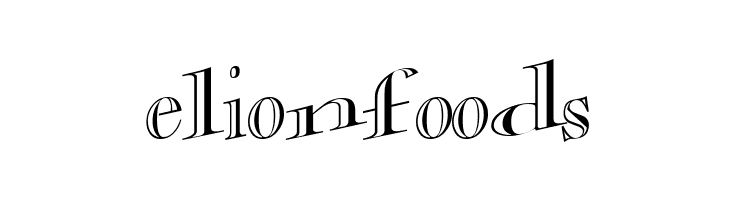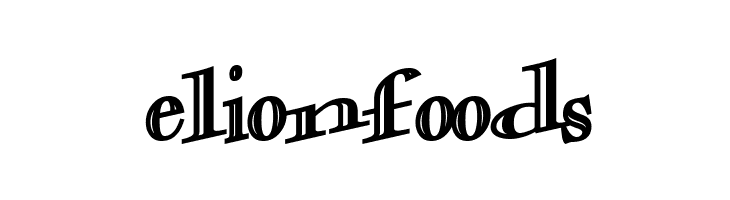
( Fonts by Levi Halmos )
A rustic, hand-drawn font with uneven strokes and a whimsical touch.
( Daniel Plant - www.fontmonster.org )
A playful, hand-drawn script with irregular, expressive strokes.
( Fonts by www.fenotype.com )
A bold, double-lined outline font with a modern, geometric style.
( Fonts by www.fenotype.com )
A bold, outlined font with rounded edges and a modern, geometric style.
( Fonts by www.fenotype.com )
A bold, outlined font with a modern, tech-inspired aesthetic.
( Fonts by www.fenotype.com )
A bold, playful font with a double-outline effect and rounded characters.
( Fonts by www.fenotype.com )
A bold, geometric font with a modern and structured design.
( Fonts by www.fenotype.com )
A modern, bold font with rounded edges and a futuristic style.
( Fonts by www.fenotype.com )
A bold, geometric font with a modern, futuristic style and rounded corners.
( Fonts by www.fenotype.com )
A bold, geometric font with a futuristic outline style.
( Fontage Canada )
A modern, geometric font with thin strokes and artistic design.
( ADT )
A playful, hand-drawn font with bold, irregular strokes and a whimsical style.
( Fonts by Utopiafonts )
A bold, geometric font with a futuristic and edgy style.
( Fonts by Levi Halmos )
A decorative and intricate font with classical and artistic elements.
( Fonts by No Images Fonts - Levi Halmos - members.chello.hu/halmos.levente/ OFF SITE )
An intricate and decorative font with geometric patterns and artistic flourishes.
( ArtsyLady - artsylady.8m.com/fonts/fontpage.htm )
A whimsical, decorative font featuring leprechaun hats on each character, perfect for festive projects.
( FontMart - fontmart.com/ )
A distressed, grungy font with a rough, eroded texture.
( ADT )
A pictographic tool-themed dingbat font with bold silhouettes.
A playful, bold handwritten font with rounded, consistent strokes.
A bold, playful handwritten font with rounded, slanted characters.
A playful, handwritten-style italic font with bold, rounded strokes.
( Glyphobet Font Foundry - glyphobet.net/typography/ )
A digital, segmented font inspired by LED displays, perfect for tech-themed projects.
( Glyphobet Font Foundry - glyphobet.net/typography/ )
A digital, segmented font with a futuristic, LED display style.
( Glyphobet Font Foundry - glyphobet.net/typography/ )
A bold, geometric font with a futuristic and abstract design.
( Fonts by Mickey Rossi - www.subflux.com )
A bold, Gothic-inspired font with ornate, angular serifs and decorative elements.
A bold, expressive brush-style font with dynamic, hand-painted strokes.
A playful, textured font with a crayon-like, hand-drawn appearance.
A bold, expressive handwritten font with a marker-like appearance.